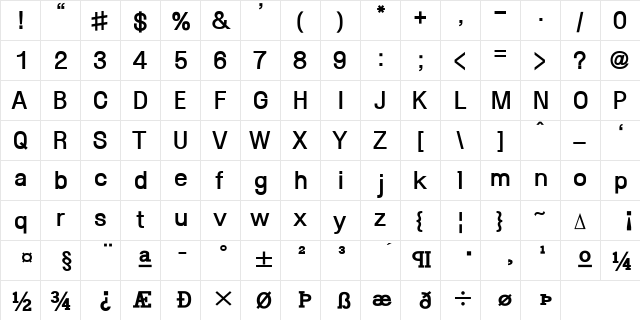
״̴͜? Regular
Design Context for ״�͜𴮰̴? Typeface
״�͜𴮰̴? takes a measured approach to typography — its balanced proportions and neutral character make it a reliable workhorse for both digital and print work.